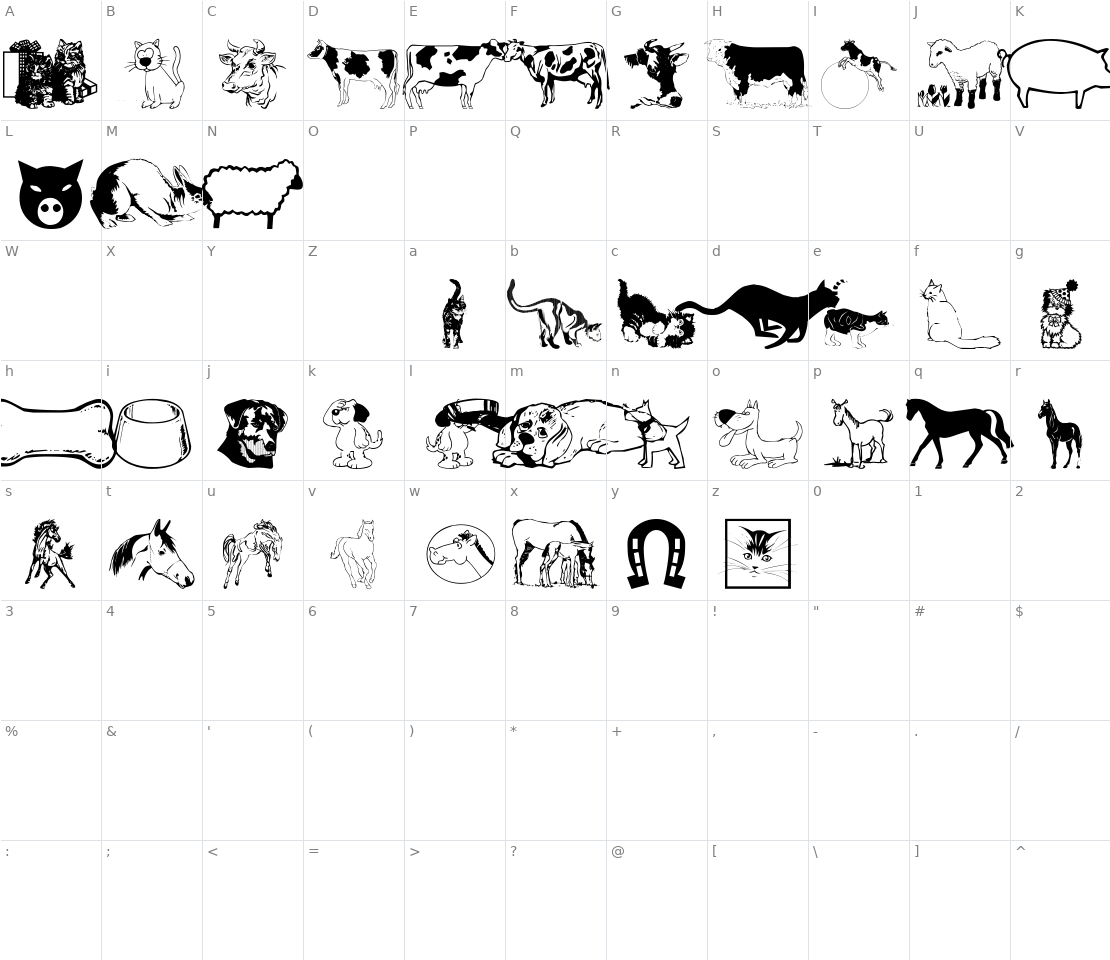
WM Animals 1
by WillyMac
WM Animals 1 is a decorative dingbat font from WillyMac where each character maps to an illustrated animal, covering farm staples like cows, sheep, and cats alongside other livestock. The illustrations have a simple clipart quality, making them useful as spot graphics in children's projects, educational materials, or rustic farm-themed layouts without needing to source separate image files.